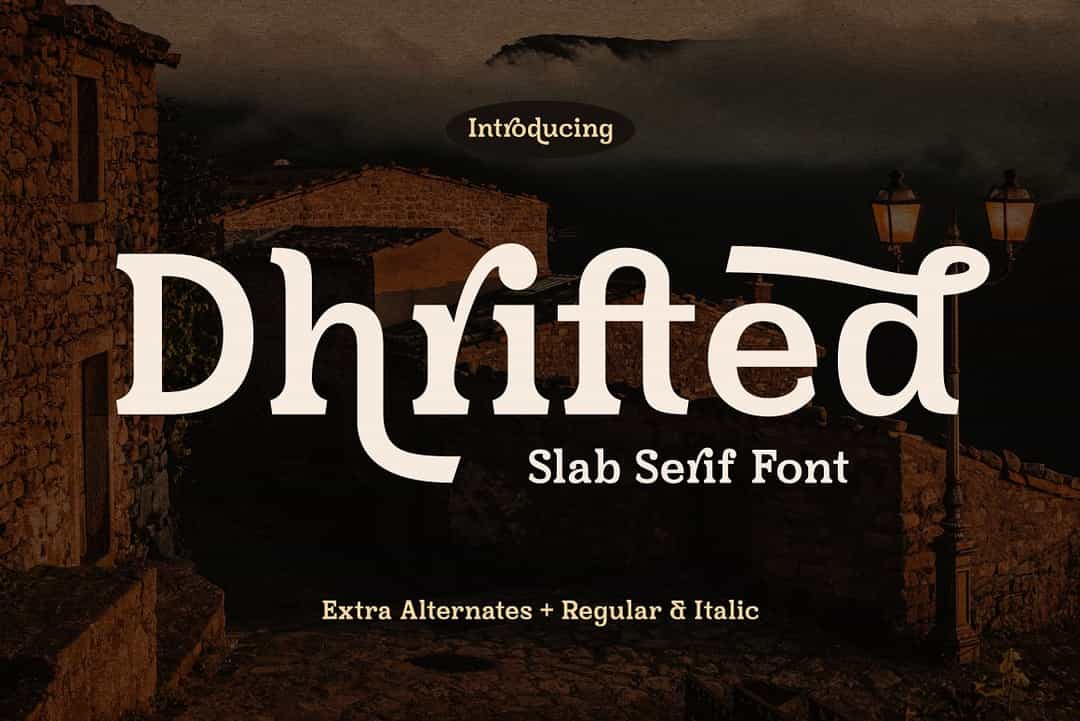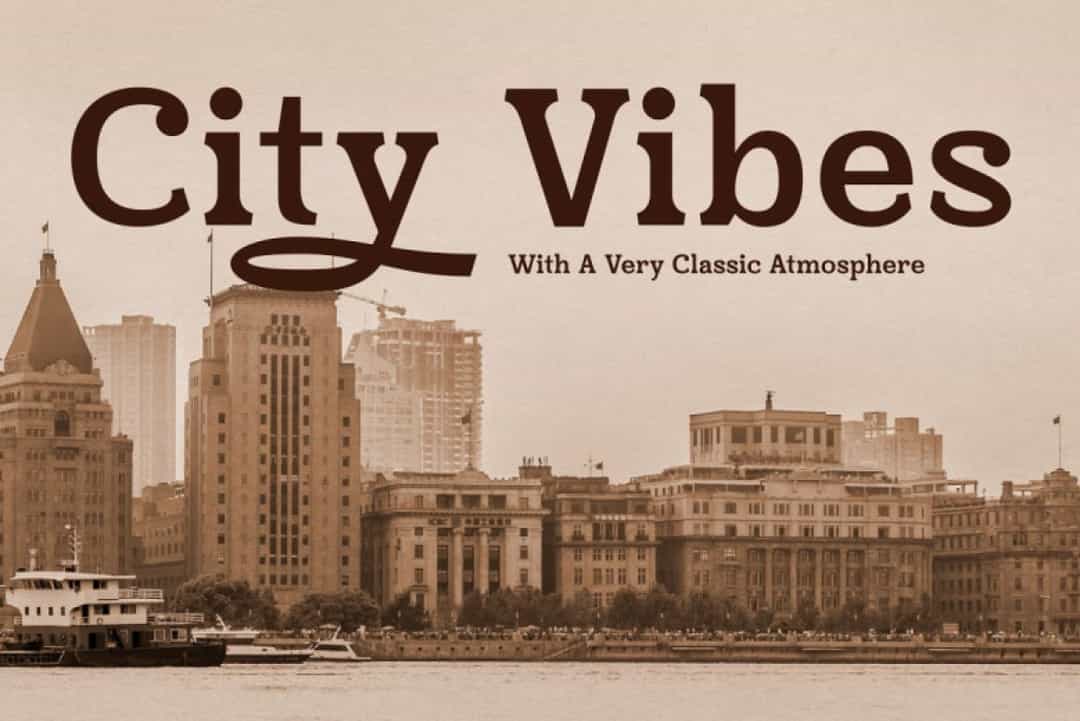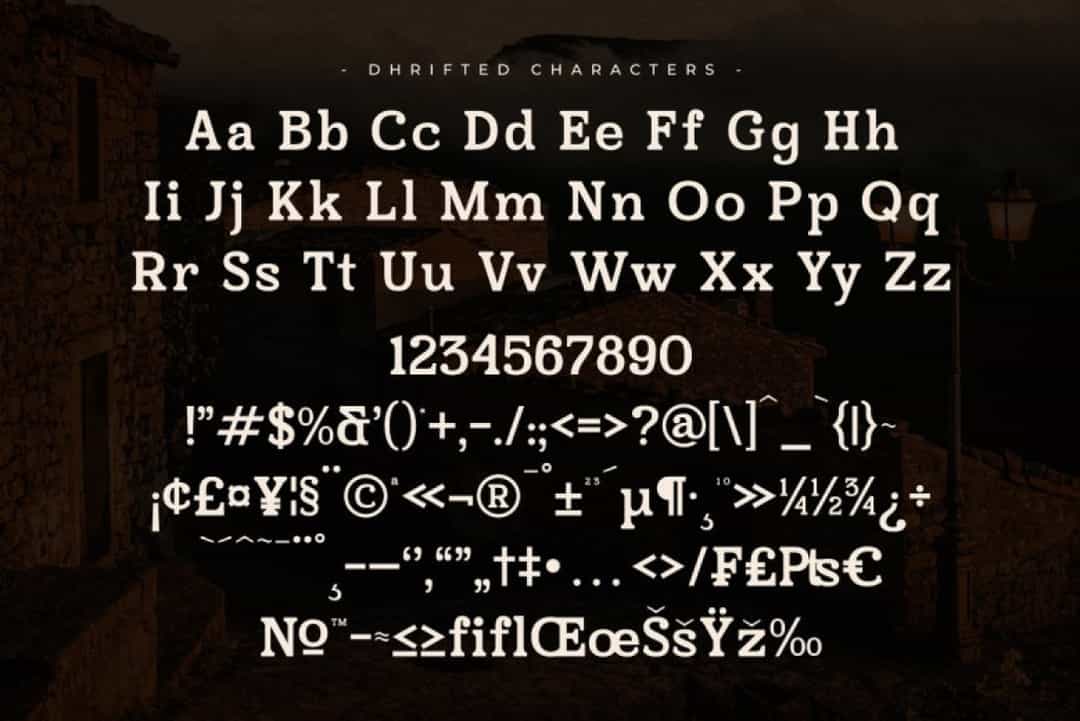
Drifted Font, designed by Storytype, is an elegant yet classic slab serif font, ideal for creating classy logos, movie or book name designs, fashion brand clothing designs, magazines articles lettering or quotes etc. This font offers its users a modern yet classic aesthetic and feel – ideal for creating logos, movie or book name designs, clothing brand name designs or quotes etc.